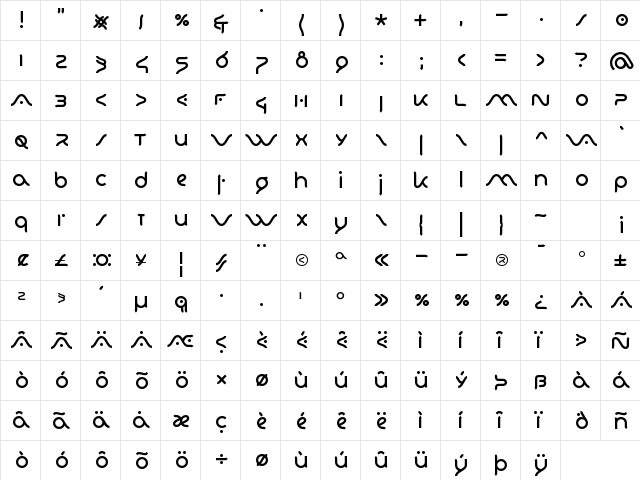
VAIO CON DIOS Regular
Design Context for VAIO CON DIOS Typeface
VAIO CON DIOS is a composed and adaptable typeface that performs quietly and consistently across a wide range of design contexts.